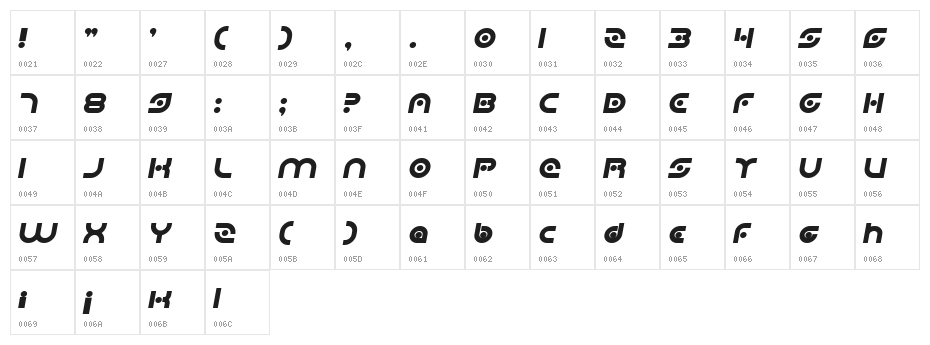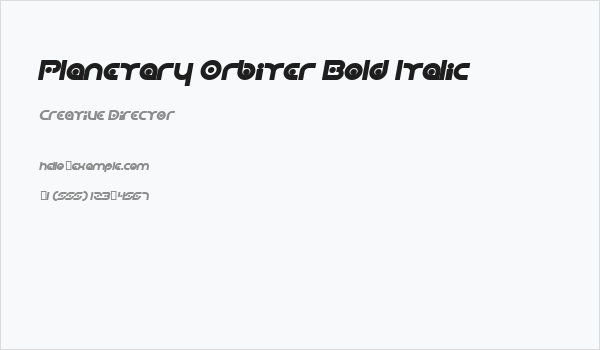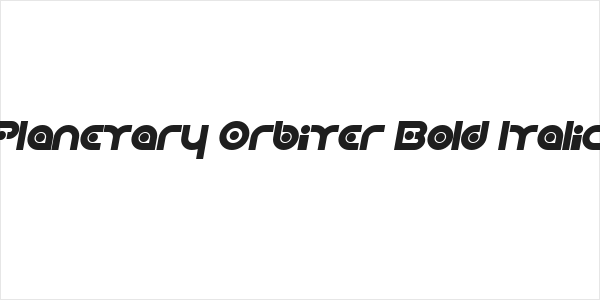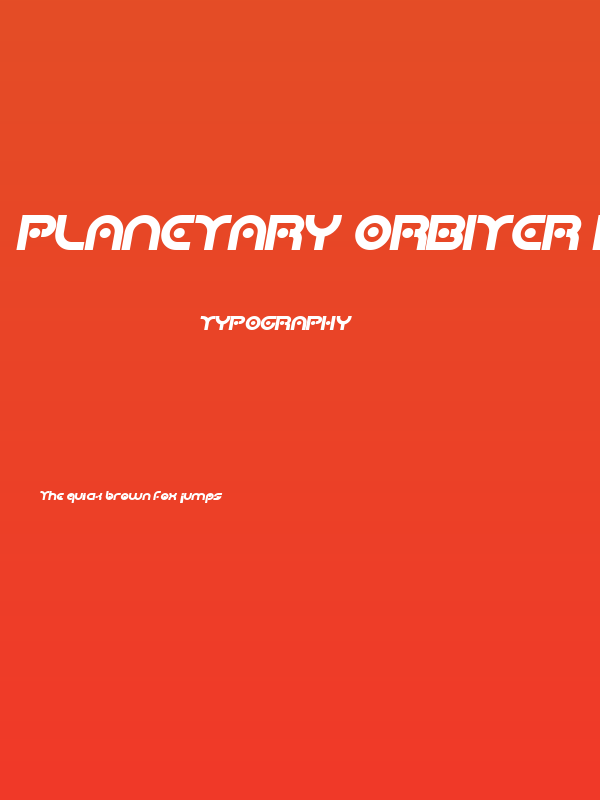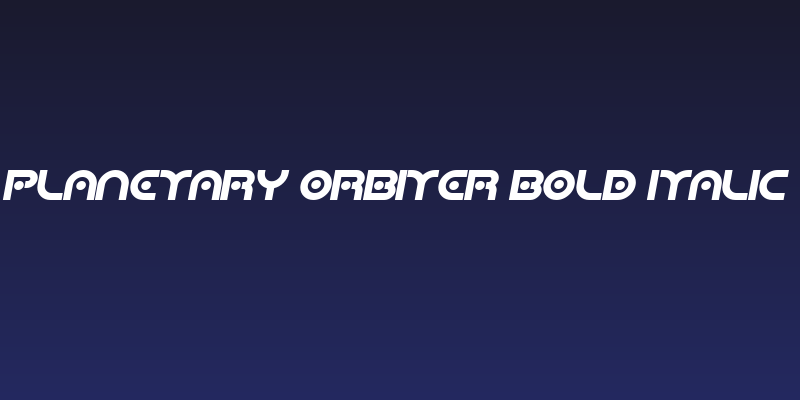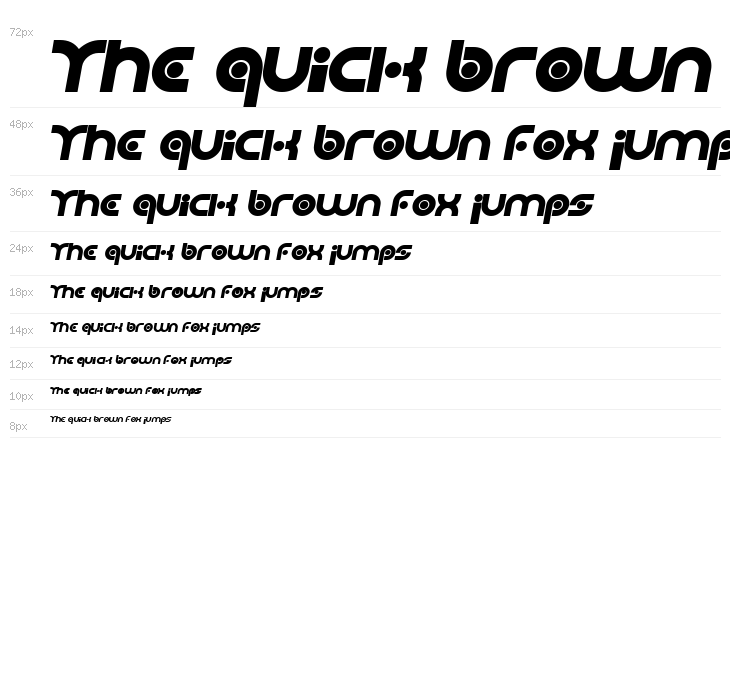
Planetary Orbiter Bold Italic Font
Planetary Orbiter Bold Italic Description
This font features a futuristic and bold design, characterized by its unique geometric shapes and smooth curves. The letters are crafted with a distinct italic slant, giving them a dynamic and forward-moving appearance. The bold weight enhances its strong presence, making it ideal for attention-grabbing headlines. The rounded edges and circular elements within the characters add a modern and sleek touch. The font maintains a consistent stroke thickness throughout, providing a uniform and cohesive look. Its style is reminiscent of sci-fi themes, making it suitable for projects that require a contemporary and innovative aesthetic.